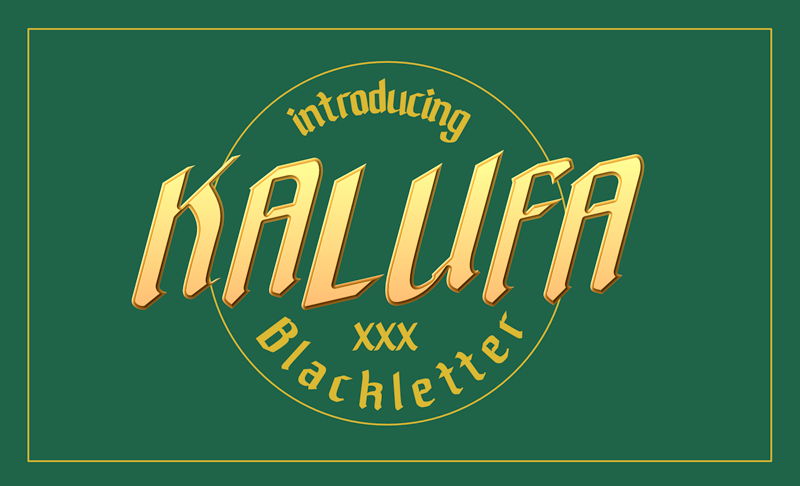
Introducing Kalufa, the blackletter font that exudes vintage and classic vibes, perfect for your display, logotype, title, headline, branding, movie display, art craft and many more. Its bold and intricate design will add a touch of elegance and sophistication to any project. Don't settle for ordinary fonts, upgrade to Kalufa and make a statement that stands the test of time. Try it out today and unleash your creativity! By installing or using this font, you are agree to the Product Usage Agreement: This font is already FULL VERSION and ONLY for PERSONAL USE. NO COMMERCIAL USE ALLOWED! Here is the link to purchase COMMERCIAL LICENSE: https://fontbundles.net/mofr24-work/2560183-kalufa If you need a CUSTOM LICENSE or CORPORATE LICENSE please contact us at: mofr24.artwork@gmail.com Any donation are very appreciated. Our Paypal account for donation : https://paypal.me/avieora Please visit our store for more amazing fonts : https://www.creativefabrica.com/mofr24-studio https://fontbundles.net/mofr24-work |